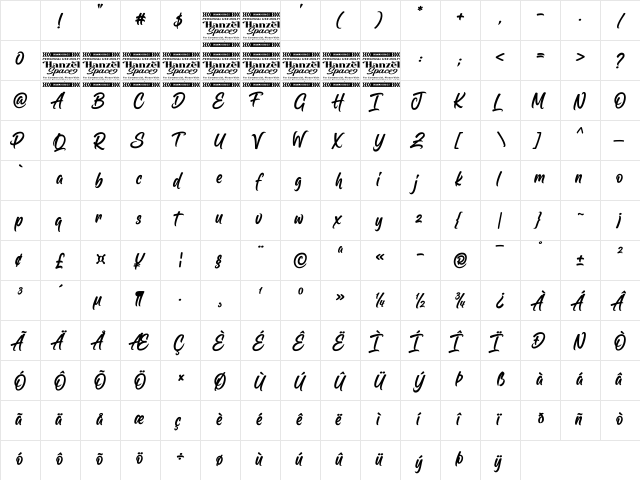
Skilled Hands flows with the natural rhythm of handwritten lettering, making it ideal for designs that call for warmth and personal expression.
Font Pairing: Combine Skilled Hands with a simple geometric sans for maximum contrast - the tension between flowing curves and clean structure is a classic typographic pairing.
Pro Tip: Use Skilled Hands for short runs of text - names, titles, or taglines. Extended body copy in script faces tires the eye quickly.